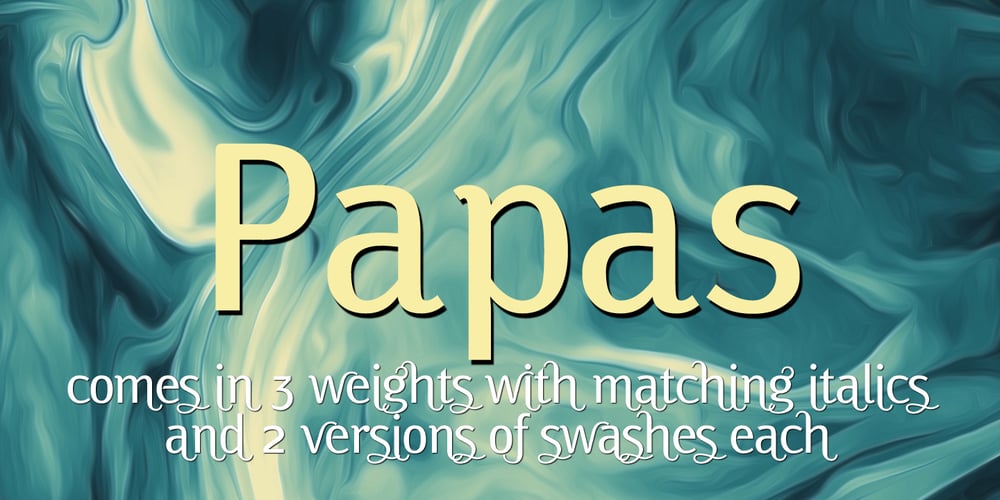
Papas
Papas font
Papas Font Family was designed by Gert Wiescher and published by Wiescher Design. Papas contains 36 styles and family package options. Papas is the typeface I use for my own correspondence. My two sons always used to tell each other: “You are not allowed to use this font, it is daddys!” And daddy in German is Papa. So this font became “Papas font. Papas is very sturdy and can be used for all kinds of things. I added a swash cut to each one of them to make it more usable for you folks out there. I throw the swashes in for free, that is why you can only buy the single weights as a bundle. Your “Papa” Gert Wiescher.